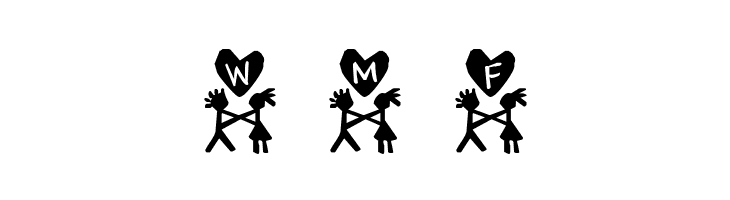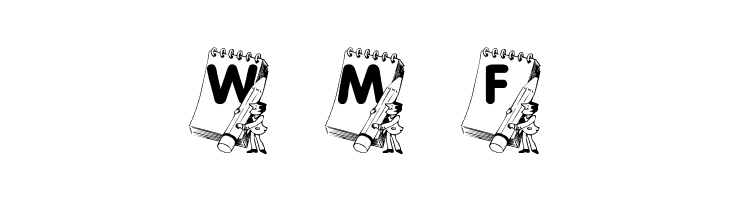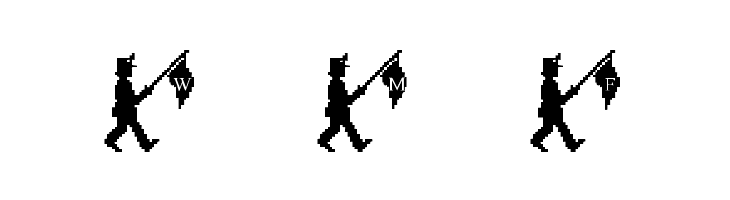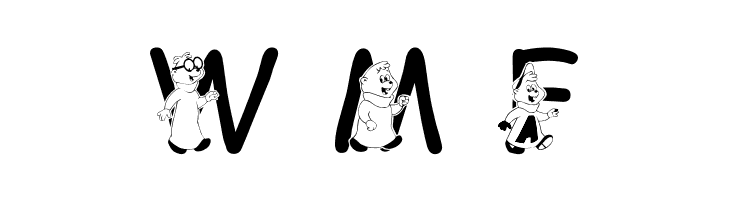
A decorative font combining letters with karate kick figures, ideal for dynamic and thematic designs.
A whimsical, heart-themed decorative font with stick figure elements.
A decorative font with characters formed by silhouettes of people, symbolizing unity.
An elegant, decorative font with whimsical figures holding wine glasses.
A playful, character-filled font perfect for fun and themed projects.
A whimsical, gingerbread-themed font perfect for festive projects.
A bold, decorative font with abstract, flame-like patterns within each character.
A whimsical font with characters displayed on notepads held by cartoon figures, perfect for playful projects.
A novelty font featuring marching figure silhouettes.
A playful font with cartoon characters integrated into bold, rounded letters.